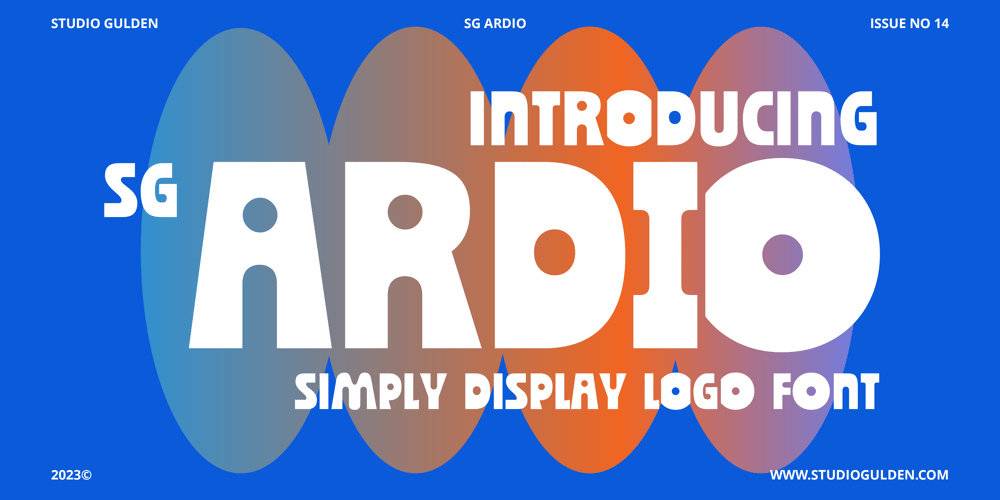
SG Ardio Font Family was designed by Umar Al Farouq, Jodi El Ghazi and published by Studio Gulden. SG Ardio contains 5 styles and family package options. Unleash the Bold Brilliance of SG ARDIO: Where Simplicity Meets Courage. With four distinct styles – mini, midi, mindi, and maxi – this display logo font is your key to striking designs, captivating posters, and unforgettable headlines. Elevate your visuals with SG ARDIO today!